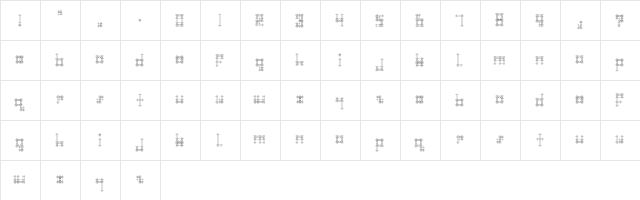
BauhausSketch Regular
Design Context for BauhausSketch Typeface
BauhausSketch is a composed and adaptable typeface that performs quietly and consistently across a wide range of design contexts.
Pro Tip: Use BauhausSketch in both headline and body roles to test its range before committing to a single application.